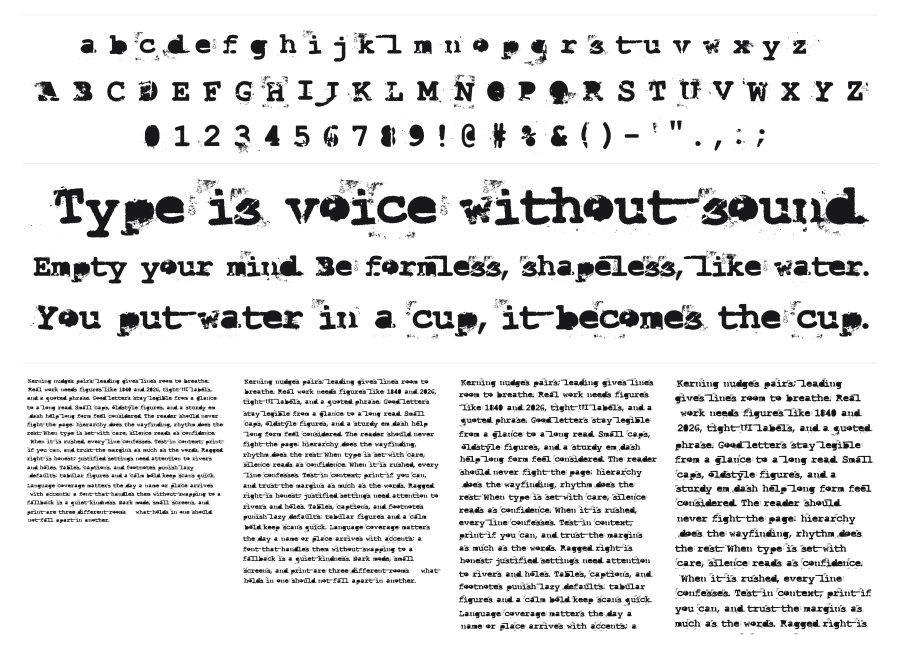
Last Draft
Last Draft is a distressed typewriter face by Andrew2 that looks like it was hammered out on a ribbon running dry, with uneven ink coverage and worn, chipped letterforms. The grunge texture feels authentic rather than applied, giving it the look of a document that's been photocopied too many times or pulled from an old filing cabinet. Works well for headlines, editorial layouts, and vintage-styled projects where you want type that carries some visible mileage.